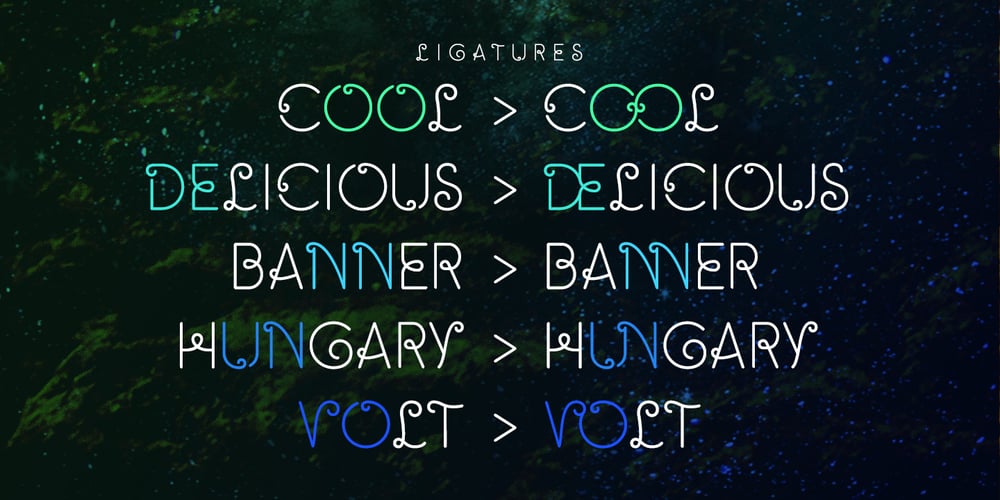
Snappy Font Family was designed by Jörg Schmitt and published by Jörg Schmitt. Snappy contains 5 styles and family package options. Snappy is a friendly and curly font. It is influenced by the typical coffee house typefaces in france. It comes along with four weights and one outline font.